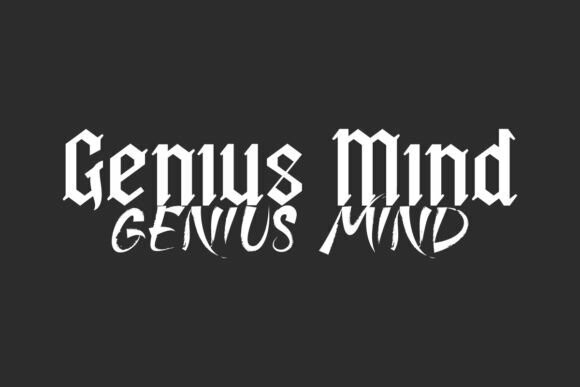
Genius Mind Font
Genius Mind Font is a mysterious font duo with two different styles: Gothic Display and Horror Brush Font. These two fonts complement each other in two different styles, bold blackletter and stylish brush. It will be suitable for many industries, such as accessories, custom design, fashion, interior design, marketing, movies, music, photography, publishing, and many more!